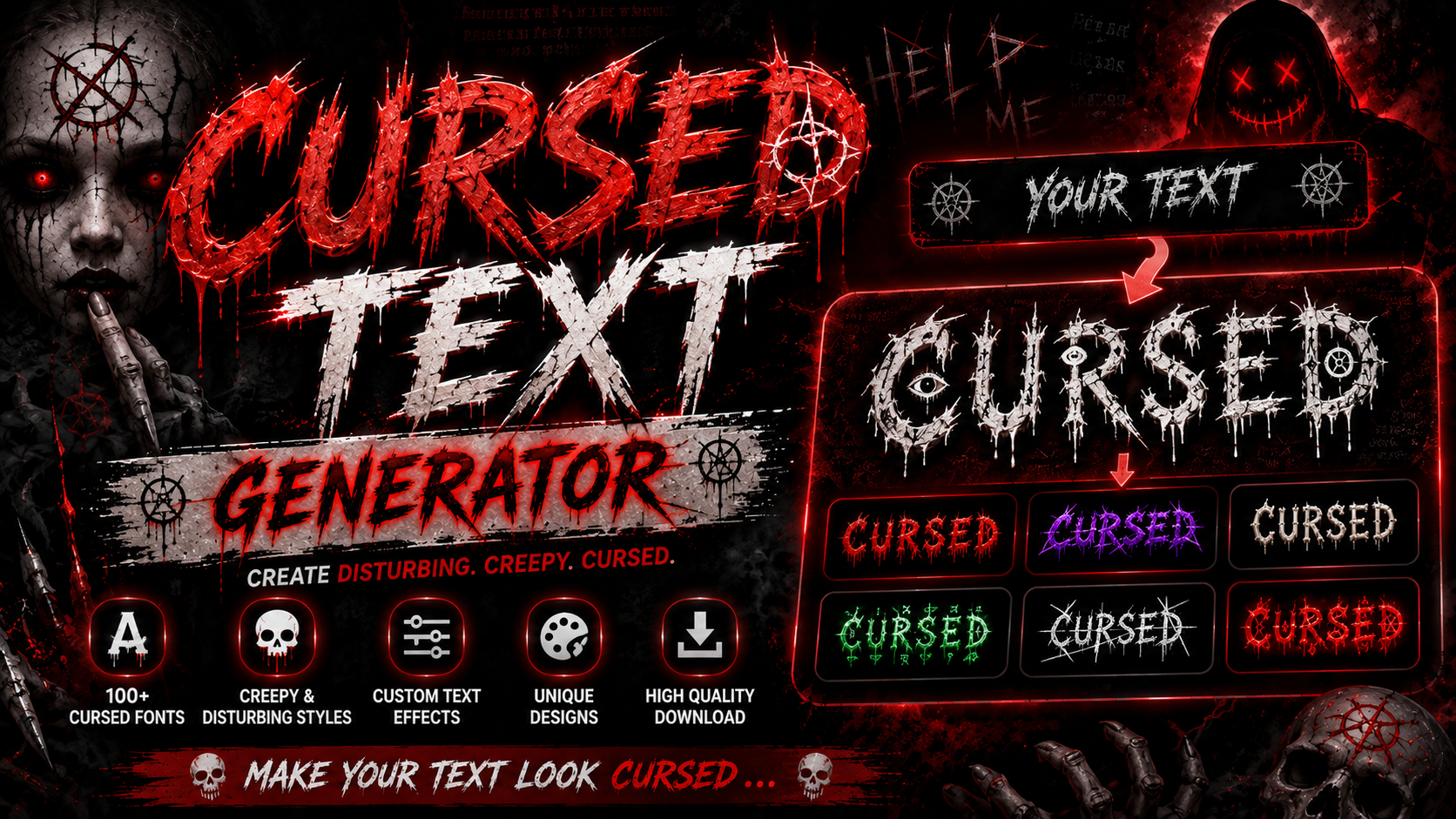
Cursed Text Generator
What drew me to cursed text first was how combining Unicode characters stack above, through, and below regular letters via diacritical marks, producing glitchy, messed up, hardly readable symbols — the essence of raw digital chaos.
Practitioners using horror or dark humor content quickly discover this free cursed text generator uses combining character techniques and Unicode standards to transform any text limitlessly — just enter, generate, and copy paste across multiple platforms.
What Is Cursed Text?
When I first encountered cursed text, its wild hacked appearance immediately caught me off guard: combining characters stacked above and below normal letters create overlapping glyphs that are hardly readable, inherently disturbing, and oddly fascinating.
Technically, it exploits Unicode combining characters, those diacritics and diacritical marks found in languages worldwide, pushing characters into weirdness, achieving a void text visual effect that simultaneously mimics satanic text, demonic text, and glitched fonts.
How to Use the Cursed Text Generator
Step 1 — Enter Text in the Field
Begin by typing your desired text directly into the input field. The cursed word generator instantly processes each character, letting you watch the effect take shape in real time, making the experience surprisingly addictive overall.
Most people overlook the craziness level slider entirely, but it’s the real power tool here. Pushing it higher will amplify your eerie fonts output, letting you create something genuinely unsettling well beyond just cool aesthetics.
Step 2 — Choose a Font Style
Once your text is ready, you’ll encounter an extensive list of font style options. Scroll through the styles, each featuring unique distorted characters that shift from subtle warping to deeply supernatural corruption across various combinations.
The way each style resonates differently with your creative vision is precisely where the real excitement lies. Select the option that feels most right — haunting, quietly chaotic, or sinister — and watch your text truly transform.
Step 3 — Copy and Paste Font
With your distorted version finally ready, the next step becomes effortless. Hit the copy and paste button, then head to your desired platform — whether that’s Facebook, Instagram, Twitter, or Discord — and drop it directly in.
No special formatting experience is required here. The generator handles everything automatically, preserving your chosen text’s corrupted appearance across different interfaces without manual adjustments, making the entire sharing process genuinely fast and painless for anyone.
Extensive Collection of Cursed Font Styles
The cursed font collection never follows standard typographic rules. Each font style carries its own intensity — from mildly unsettling marks to extremely corrupted glyphs displaying a glitchy appearance. This diverse flexibility defines true design power.
Beyond aesthetics, font styles resonate differently with audiences. Creepypasta writers favor intensely distorted text, while gaming usernames lean toward glitched fonts that capture identity. True cursed writing styles serve tone, not just visual uniformity alone.
Use Cursed Text Across Platforms
Discord usernames, Twitter bios, Reddit posts, and Instagram captions all support glitched aesthetics through Unicode characters that stack and overlap. Your social media accounts and profiles genuinely stand out on every platform without extra effort.
YouTube comment sections, internet comments, and chat messages often thrive on creepy text. Just copy and paste generated text across devices — the hacked text effect conveys darkness and supernatural themes wherever you are posting content.
Amplify Your Social Media Presence With Cursed Text
Social media competition is brutal — most bios fade out instantly. Switching over to cursed text fonts gives your digital identity an indelible mark, making followers stop, engage, and genuinely remember you without any extra effort.
Most creators overlook how eerie fonts can shift perception. A cursed text generator, when pasted across social media platforms, creates distorted characters that feel mystical, giving branding a distinctive edge over ordinary regular text strategies.
The Free Toolkit for Cursed Text Maker
Most practitioners overlook how deeply a free cursed font generator shapes digital identity. Unlike paid tools, this website delivers eerie precision, letting your word carry horror weight without budget constraints or platform restrictions slowing creative momentum.
What separates casual users from intentional creators is knowing how craft meets function. Every message built here uses Unicode standards to generate results that feel possessed, pushing text beyond ordinary formatting into genuinely disturbing visual territory worth exploring.
Elevate Plain Text Using Our Free Cursed Text Generator
What Is Unicode?
The universal character encoding standard assigns a unique number through character encoding systems, allowing worldwide written languages, symbols, letters, and diverse scripts across every device or application maintain consistency within digital environments, helping developers and creators display content accurately everywhere.